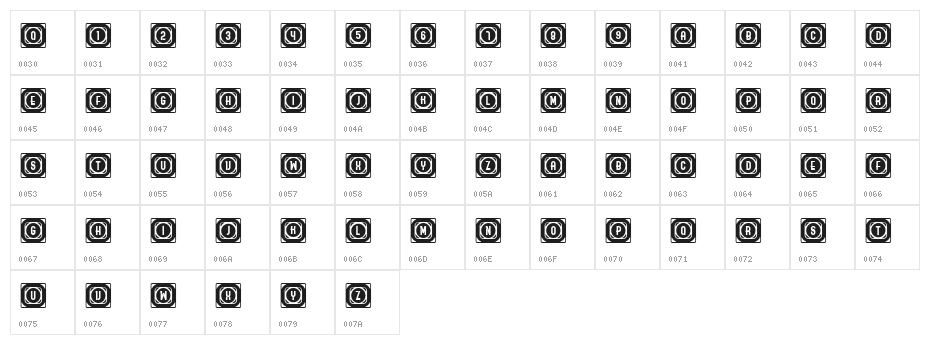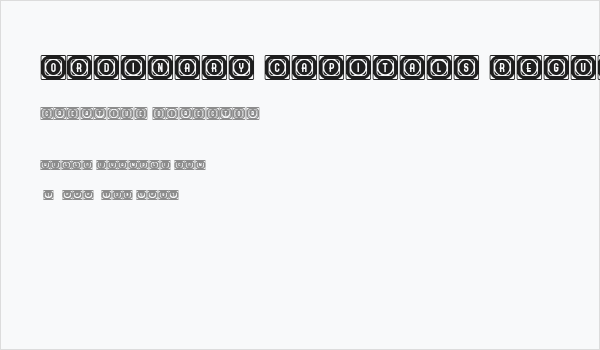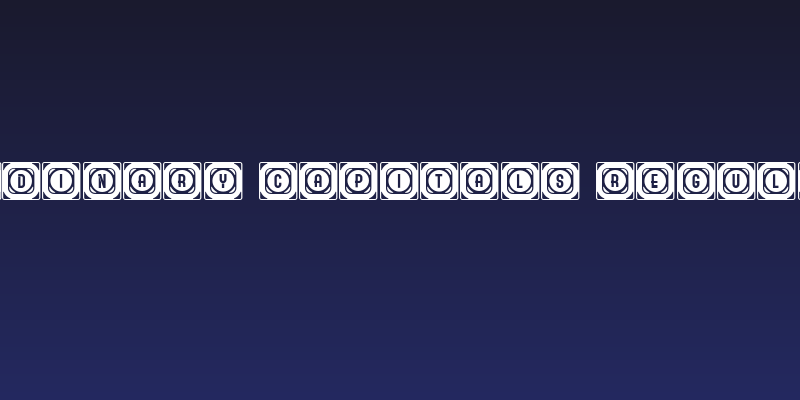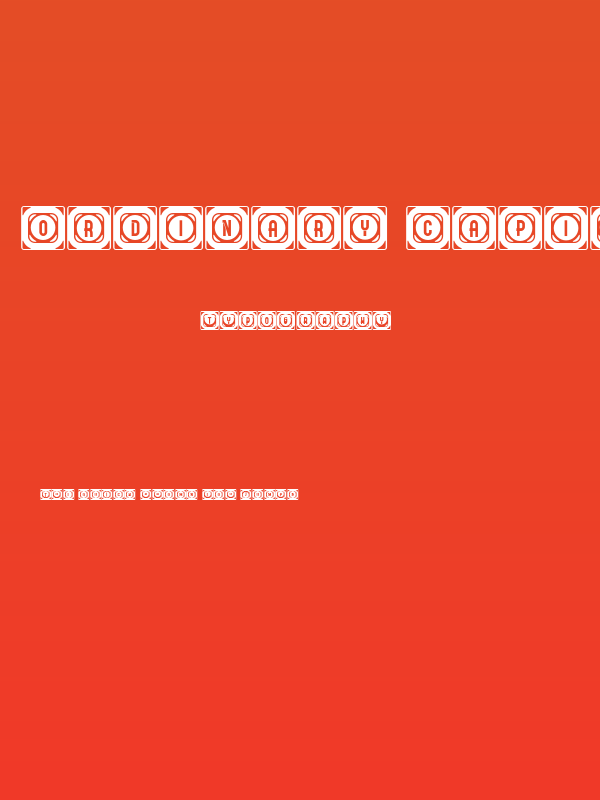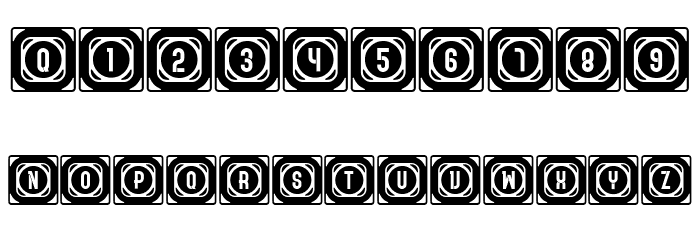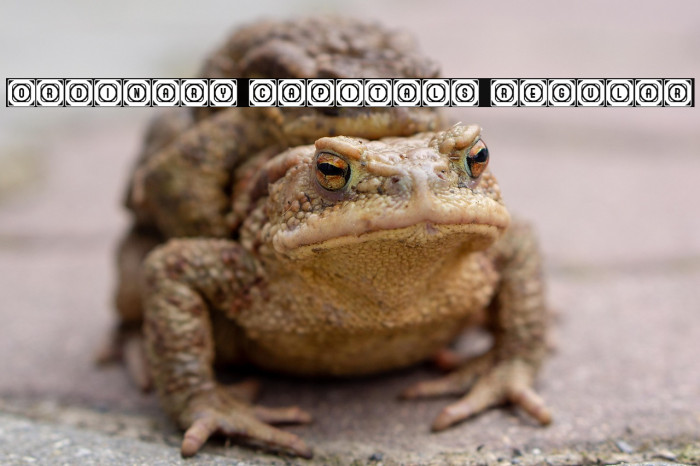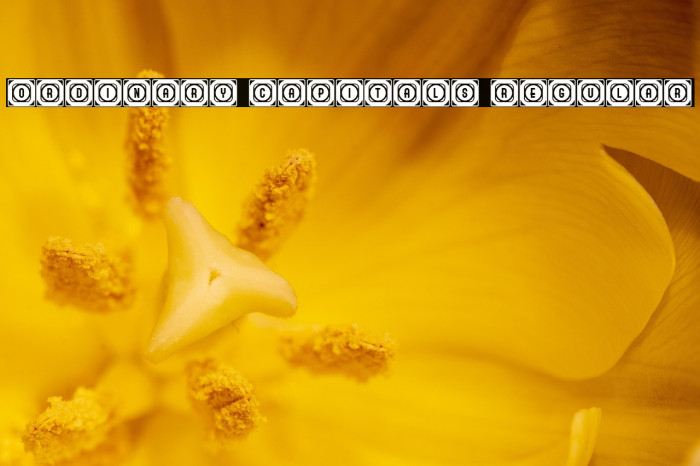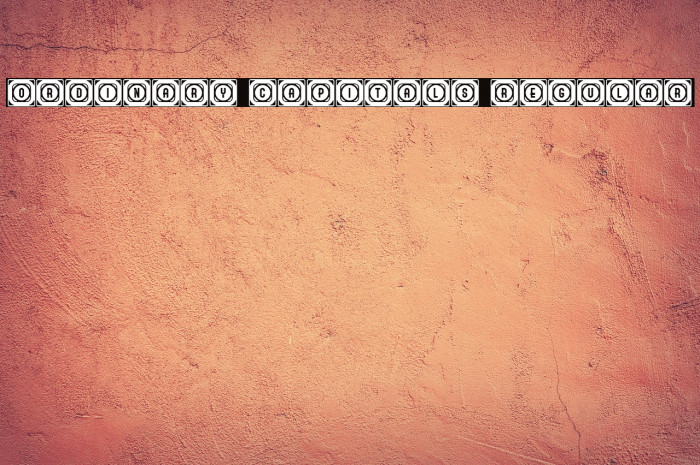
Ordinary Capitals Regular Font
Ordinary Capitals Regular Description
This font features a unique design where each character is enclosed within a square frame, giving it a distinct and bold appearance. The letters are uppercase and have a geometric, almost mechanical style, with clean lines and uniform thickness. The characters are centered within their frames, creating a balanced and organized look. The overall aesthetic is modern and slightly industrial, making it suitable for projects that require a strong visual impact.
| Overall Style | Modern, Industrial |
| Proposed Projects | Ideal for branding, posters, signage, and any project needing a strong, modern aesthetic. |